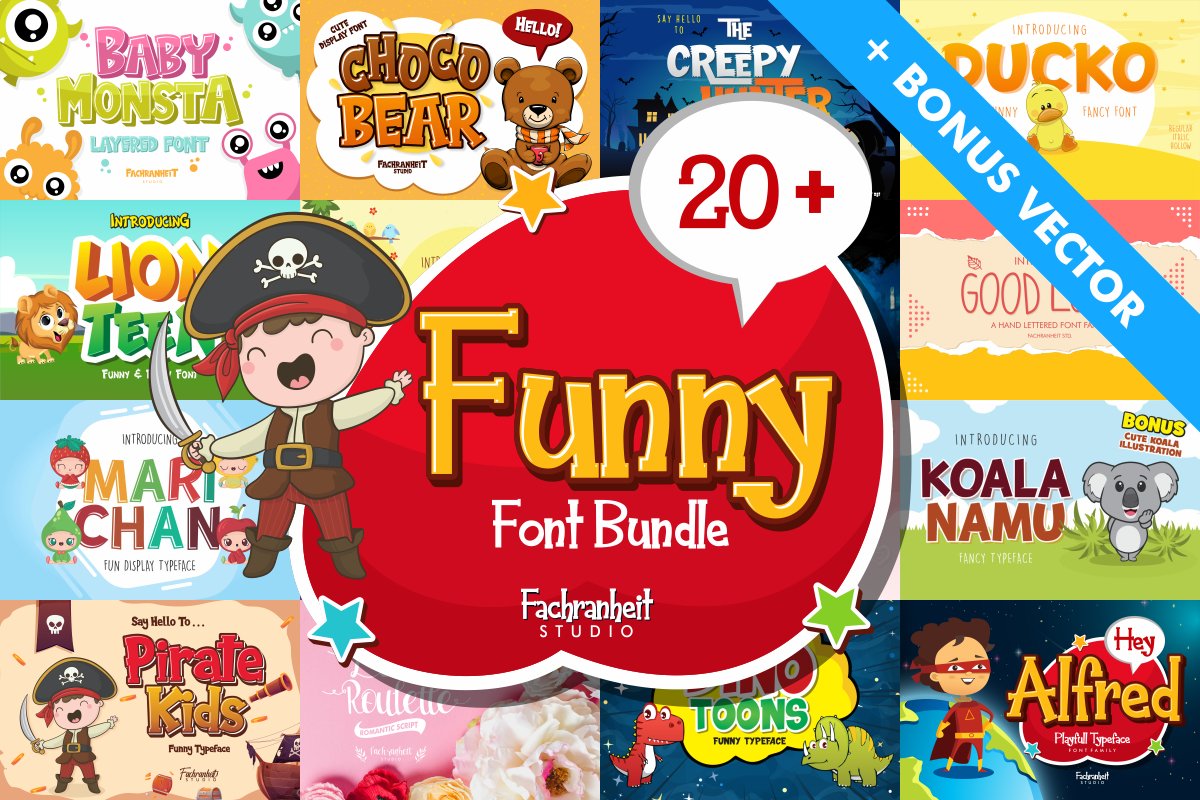
The Funny Font Bundle
We've handpicked a unique selection for this special bundle.
It does not include ALL of our fonts - just a mix of different styles of our awesome crafting display font!
Take a closer look at most of the fonts included below
includes:
- Alien Invasion (https://fontbundles.net/fachranheit/225109-alien-invasion)
- Baby Monsta (https://fontbundles.net/fachranheit/523648-baby-monsta)
- Birdthopia (https://fontbundles.net/fachranheit/225098-birdthopia)
- Choco Bear (https://fontbundles.net/fachranheit/539410-choco-bear)
- Dinotoons (https://fontbundles.net/fachranheit/225113-dinotoons)
- Ducko (https://fontbundles.net/fachranheit/244992-ducko)
- Frederico (https://fontbundles.net/fachranheit/350812-frederico)
- Gedeboog (https://fontbundles.net/fachranheit/225100-gedeboog)
- Good Luck ! (https://fontbundles.net/fachranheit/542174-good-luck)
- Hey Alfred (https://fontbundles.net/fachranheit/532900-hey-alfred)
- Koala Namu (https://fontbundles.net/fachranheit/259173-koala-namu)
- Lion Teen (https://fontbundles.net/fachranheit/230671-lion-teen)
- Lovely Heart (https://fontbundles.net/fachranheit/225099-lovely-heart)
- Love Roulette (https://fontbundles.net/fachranheit/480673-love-roulette)
- Marichan (https://fontbundles.net/fachranheit/278152-marichan)
- Monsterio (https://fontbundles.net/fachranheit/225096-monsterio)
- Pirate Kids (https://fontbundles.net/fachranheit/580009-pirate-kids)
- Quinthero (https://fontbundles.net/fachranheit/436610-quinthero)
- Respection Script (https://fontbundles.net/fachranheit/566223-respection-script)
- The Creepy Hunter (https://fontbundles.net/fachranheit/362874-the-creepy-hunter)
This bundle is perfect for something that carries cartoon themes, children's books, funny greeting cards, food package designs, simple logotype, t-shirt design, bottle label, games application name, vintage poster or abstract images, and many more.